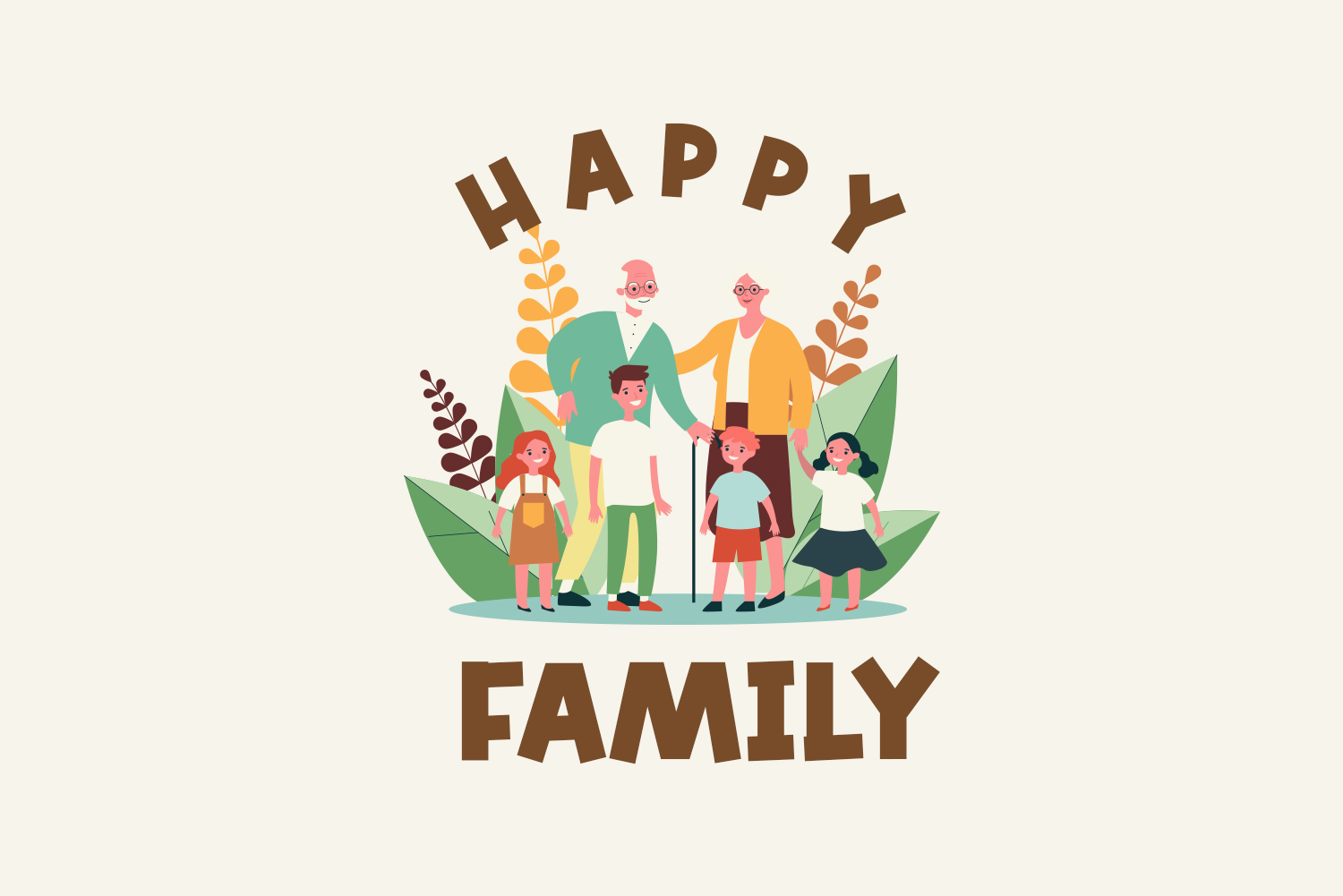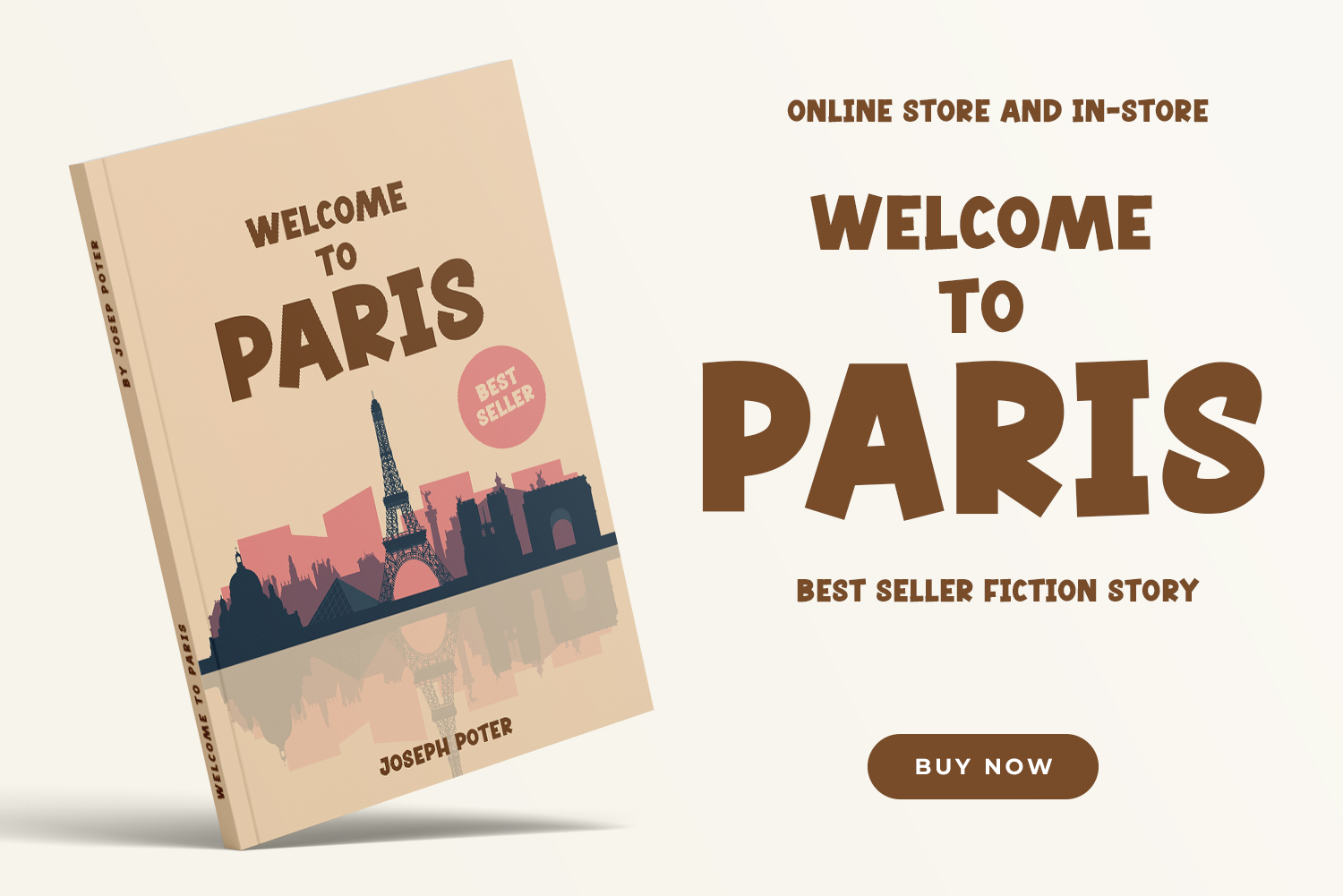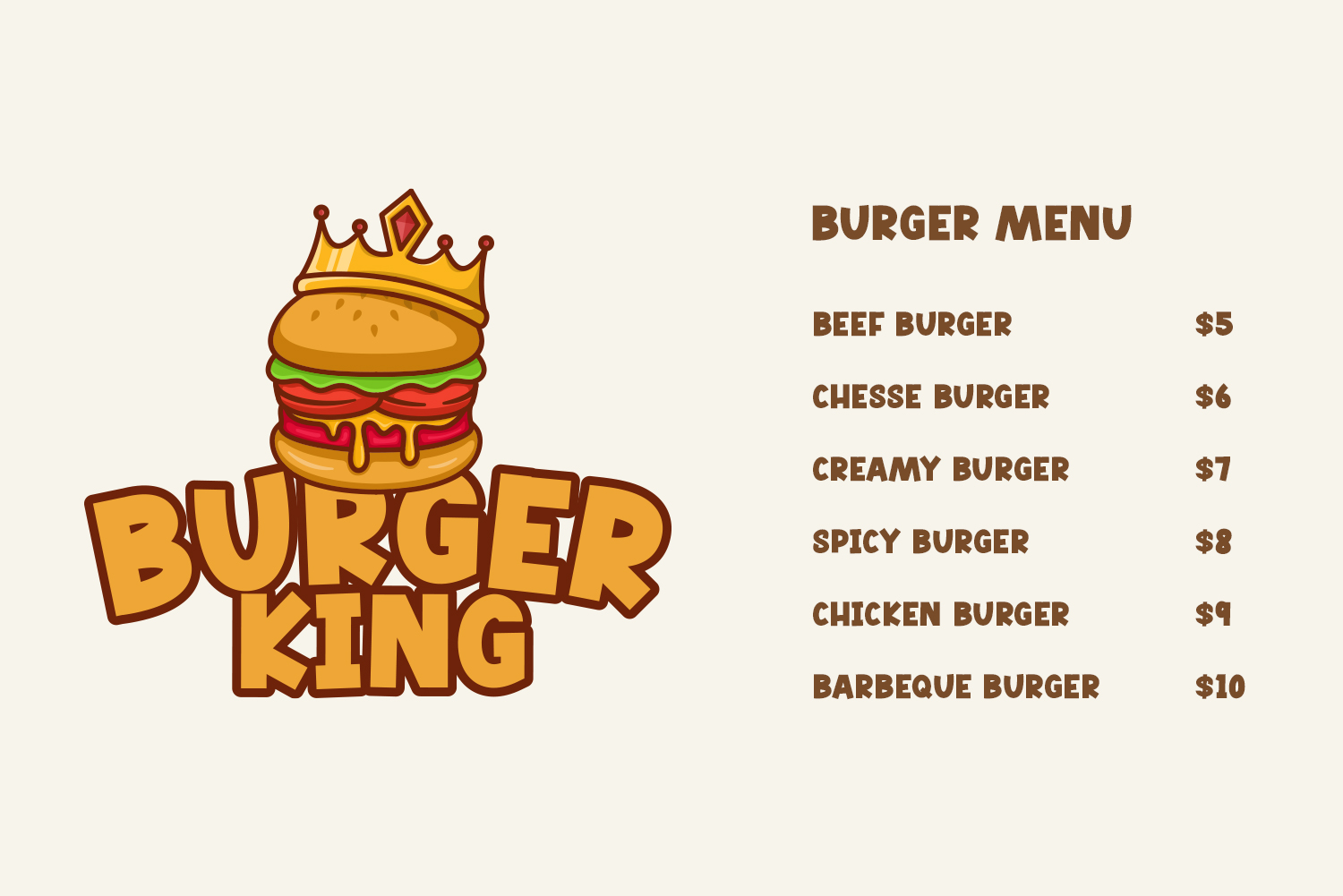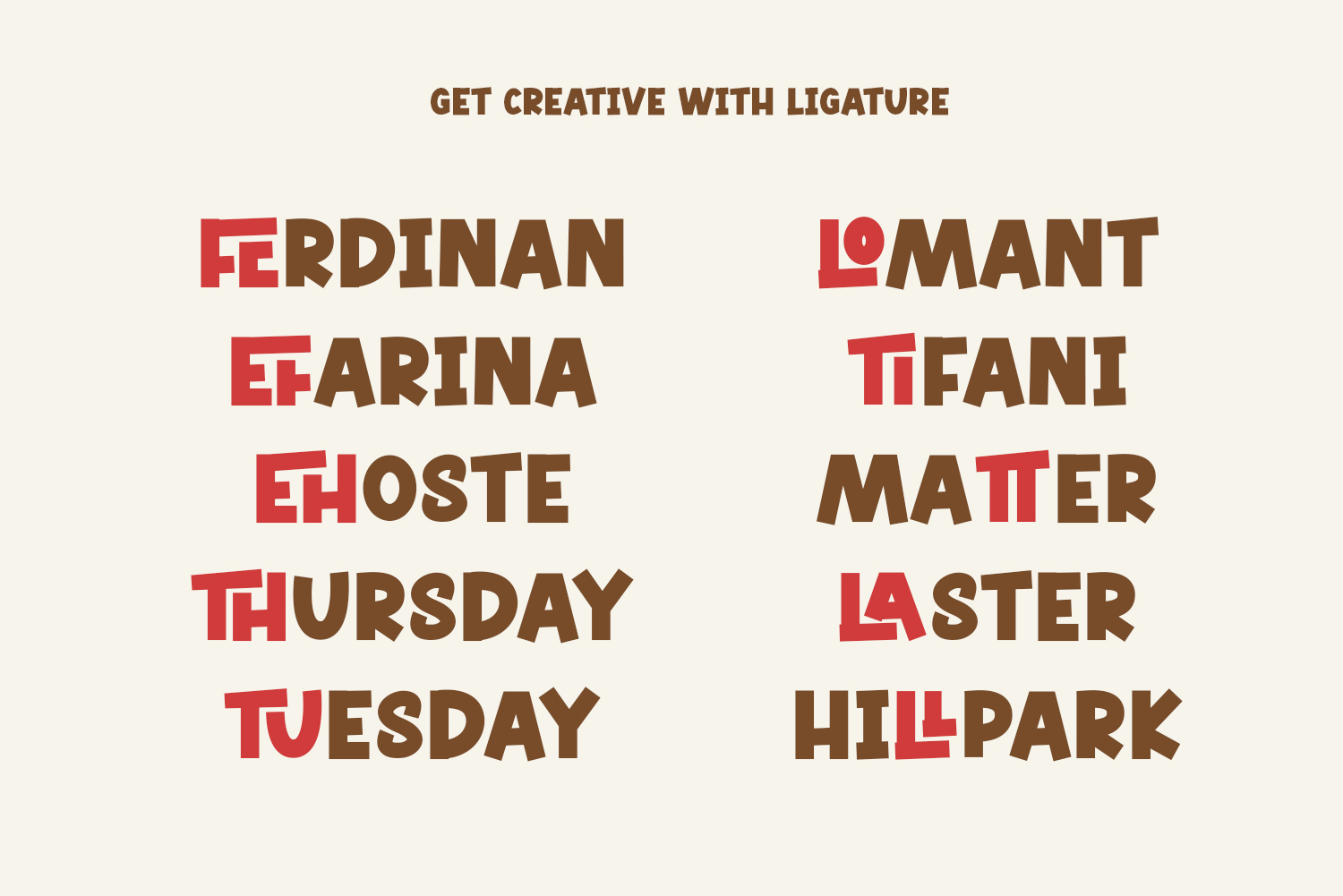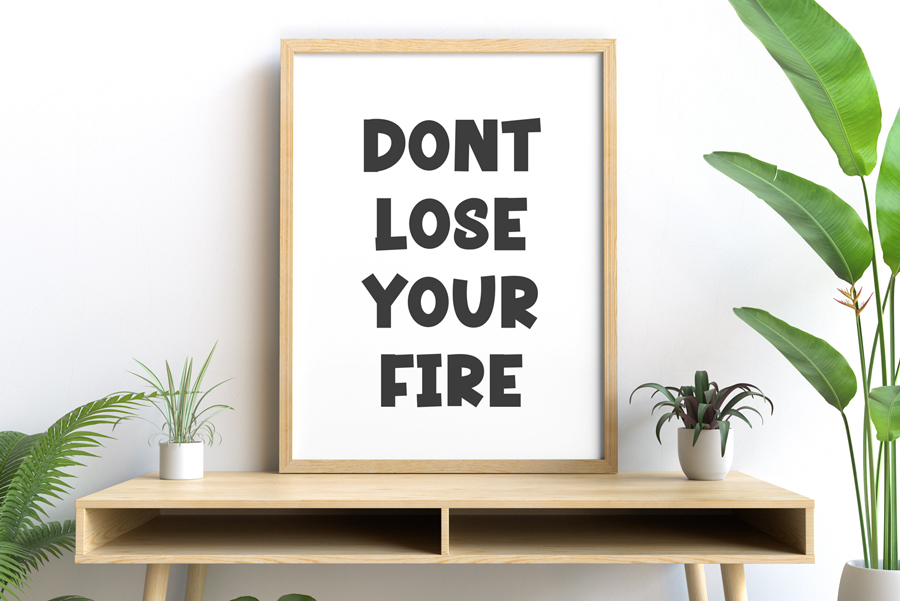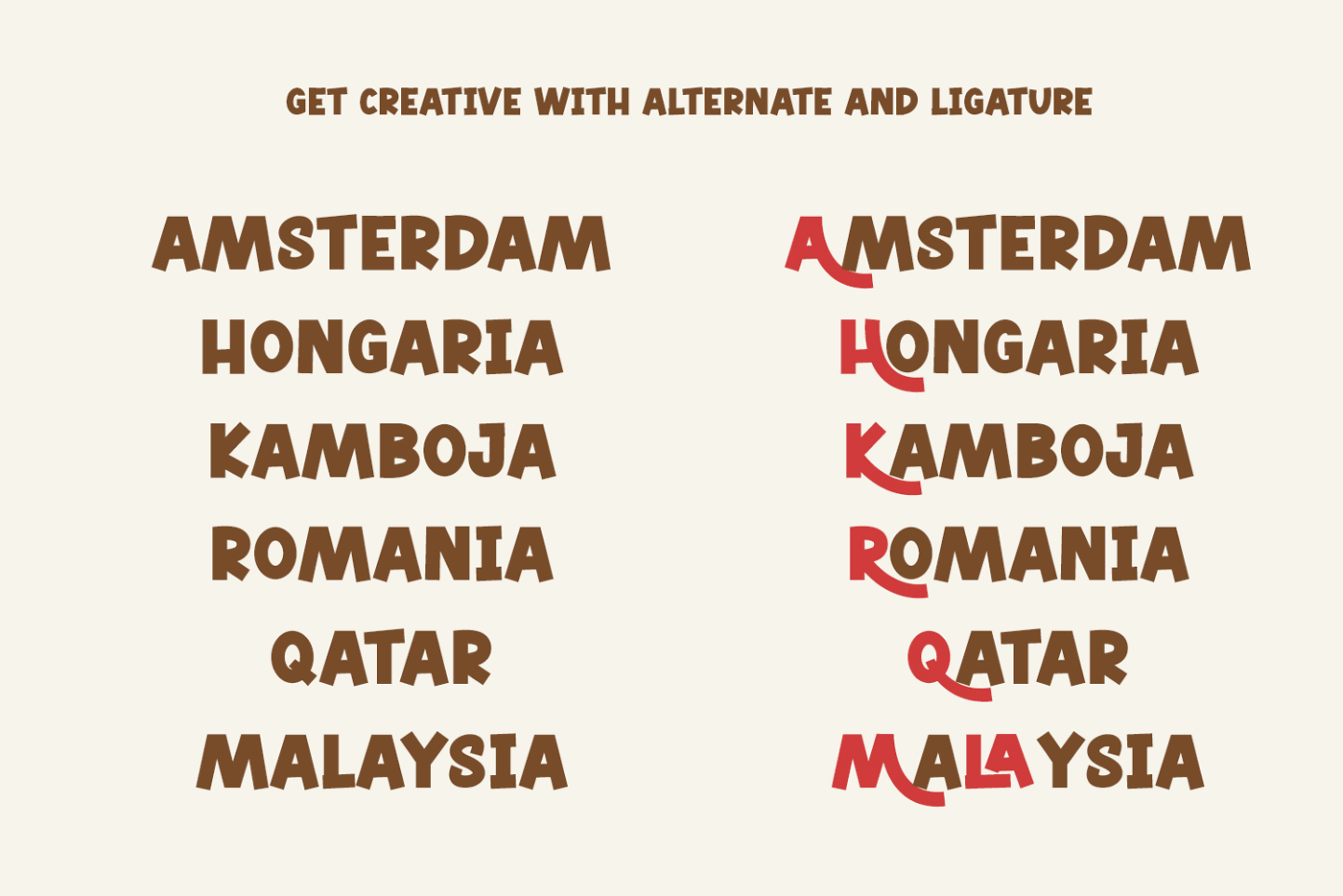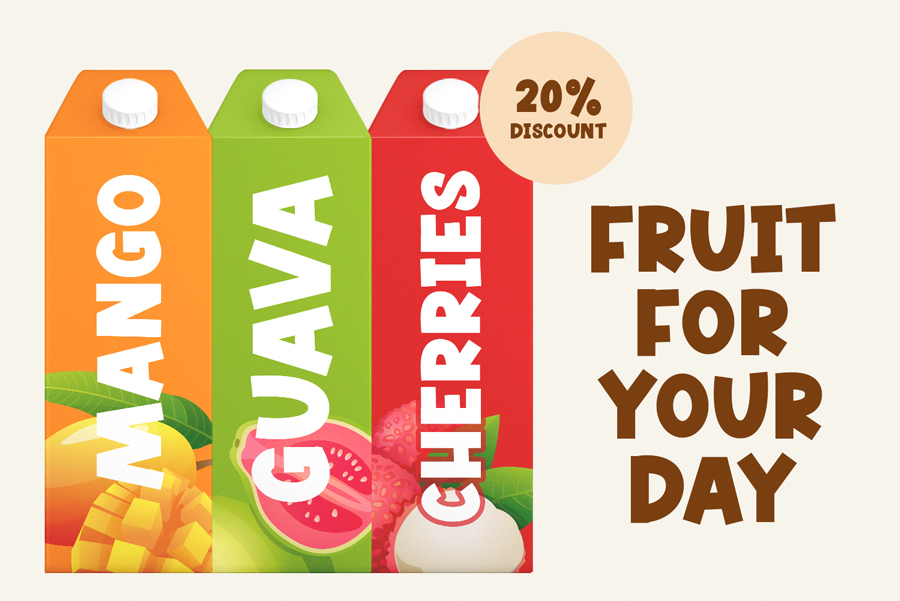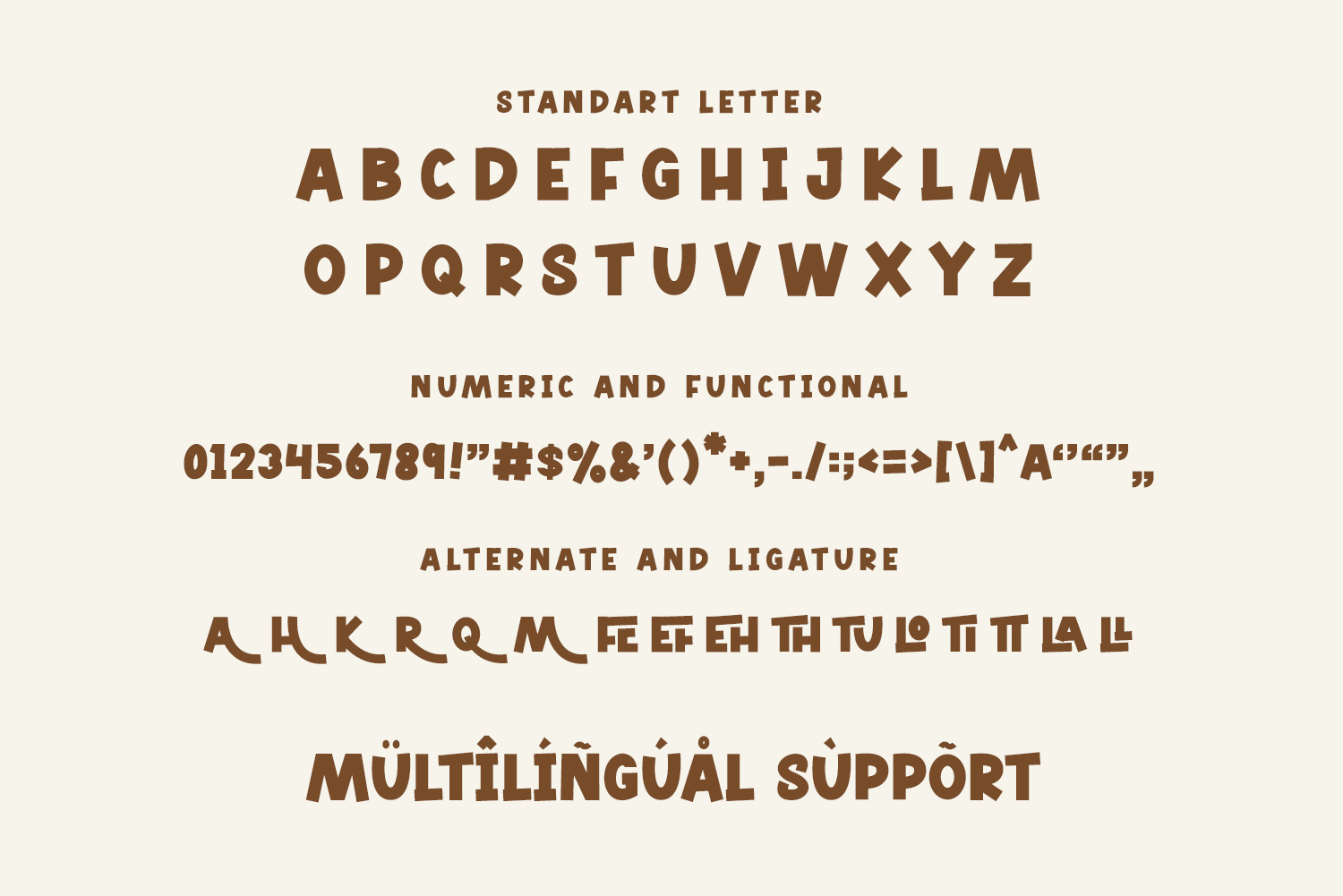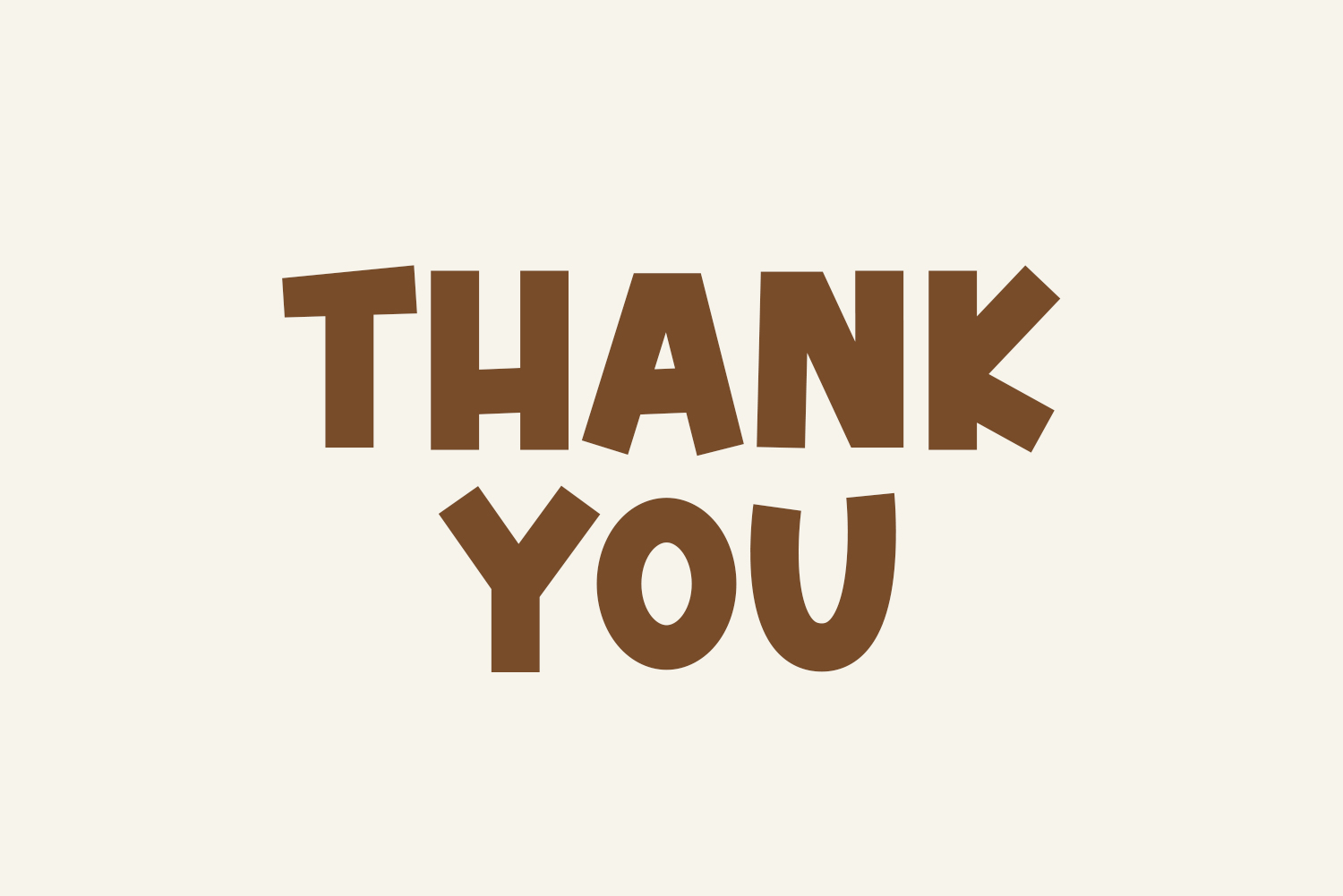
Monkey Land Playful Font
Monkey land look bold, modern and joyful. This font suitableĀ  for logos, packaging designs, posters, business card, cover, broadcast, quotes, books, etc. Let’s we go, to make you business go to next level with monkey land.
• Standart Letter A-Z
Fonts includeĀ Multilingual SupportĀ for:Ā Afrikaans, Albanian, Asu, Basque, Bemba, Bena, Breton, Chiga, Cornish, Dutch, English, Estonian, Filipino, Finnish, Friulian, Galician, Gusii, Indonesian, Irish, Italian, Kabuverdianu, Kalenjin, Kinyarwanda, Luo, Luxembourgish, Luyia, Machame, Makhuwa-Meetto, Makonde, Malagasy, Manx, Morisyen, North, Ndebele, Nyankole, Oromo, Portuguese, Quechua, Romansh, Rombo, Rundi, Rwa, Samburu, Sango, Sangu, Scottish, Gaelic, Sena, Shambala, Shona, Soga, Somali, Spanish, Swahili, Swedish, Swiss, German.